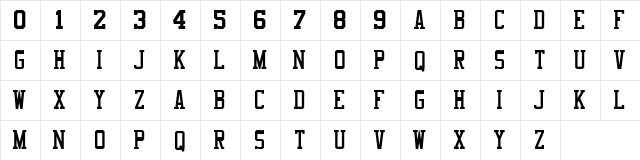
Varsity Classic Serif B Regular Font Preview
Varsity Classic Serif B Regular
Varsity Classic Serif B Regular Font Details
Design Context for Varsity Classic Serif B Typeface
Varsity Classic Serif B brings high-energy athletic personality to the page — its confident, muscular forms are built for impact.
A natural choice for gym brands, fantasy sports, jersey lettering, and action-driven headlines.
Pro Tip: Use Varsity Classic Serif B in all-caps headlines where its athletic energy can fully express itself. Pair with a solid, simple sans for supporting text.